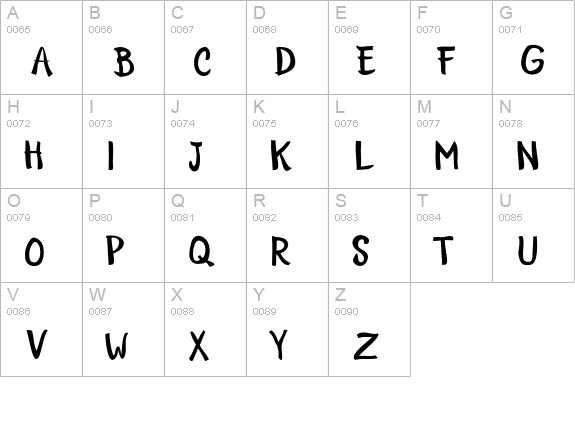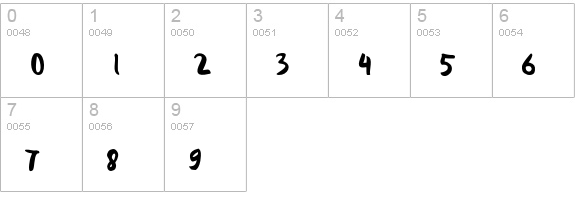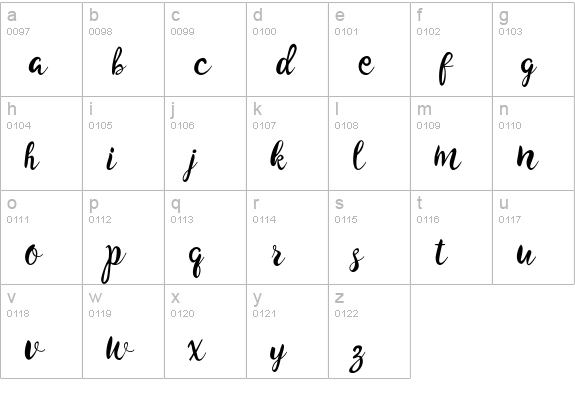
daviya Font Details
Daviya font is a stunning display typeface that combines elegance with modernity. Its sleek lines and unique flourishes make it perfect for adding a touch of sophistication to any design project. With its versatile style, Daviya font is suitable for a variety of uses, from branding to invitations to editorial designs. The best part? Daviya font is freely available to download at FontsMarket.com. This means you can easily access this beautiful font and start using it in your projects right away. Don't miss out on the opportunity to elevate your designs with the timeless beauty of Daviya font. Download it today and let your creativity shine!